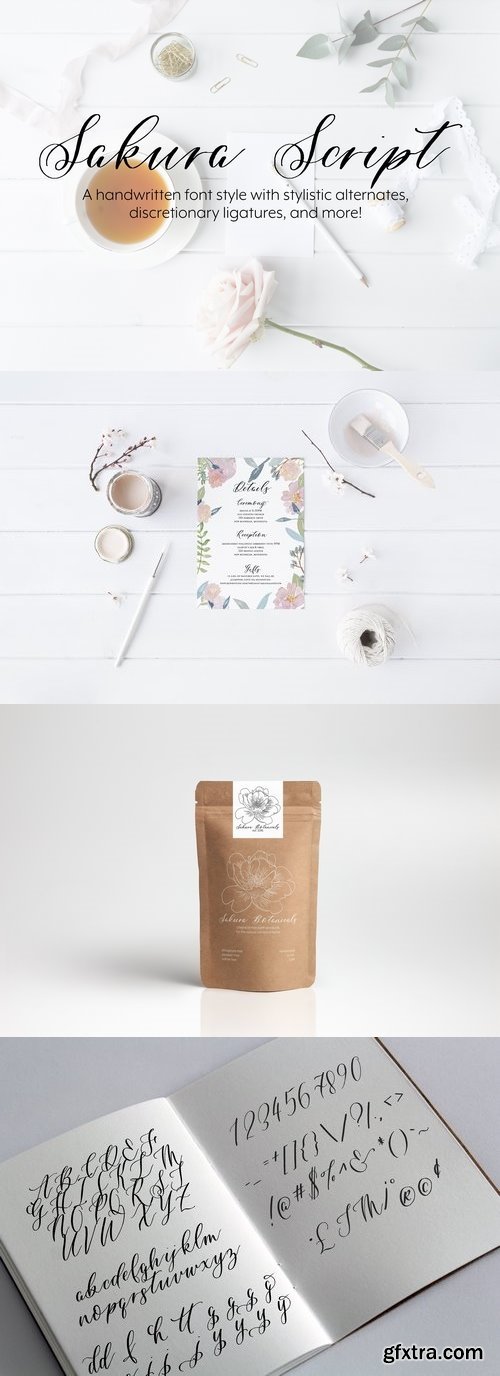
CM - Sakura Script 1476227
Sakura Script is a handwritten font with a rough texture designed to emulate the look of a calligraphy pen on paper. This font includes stylistic alternates, discretionary ligatures, and much more.